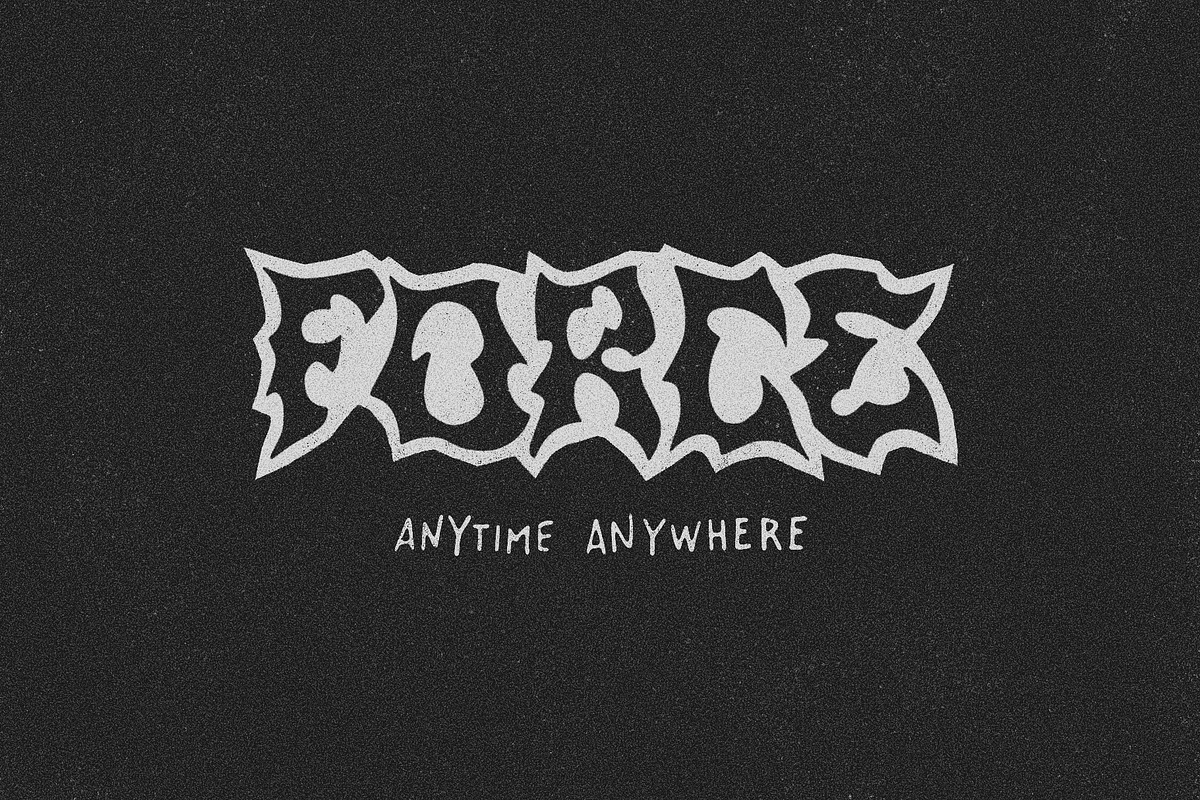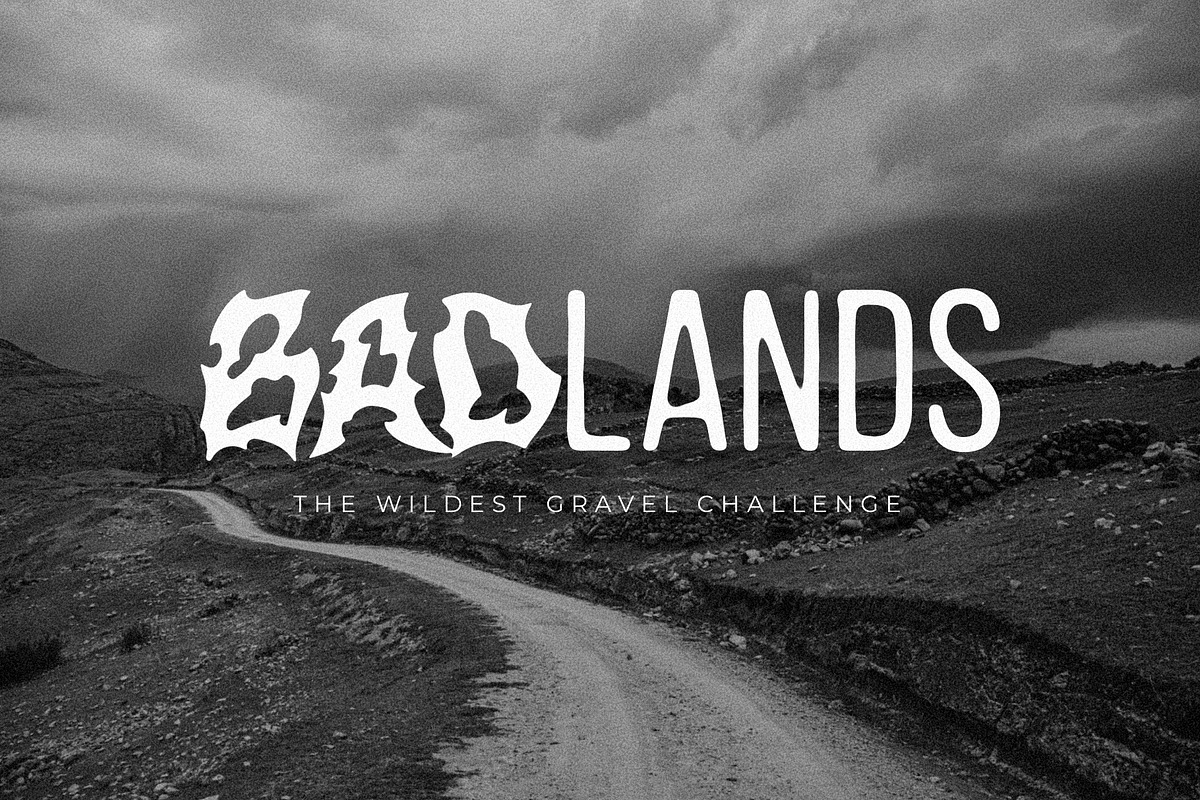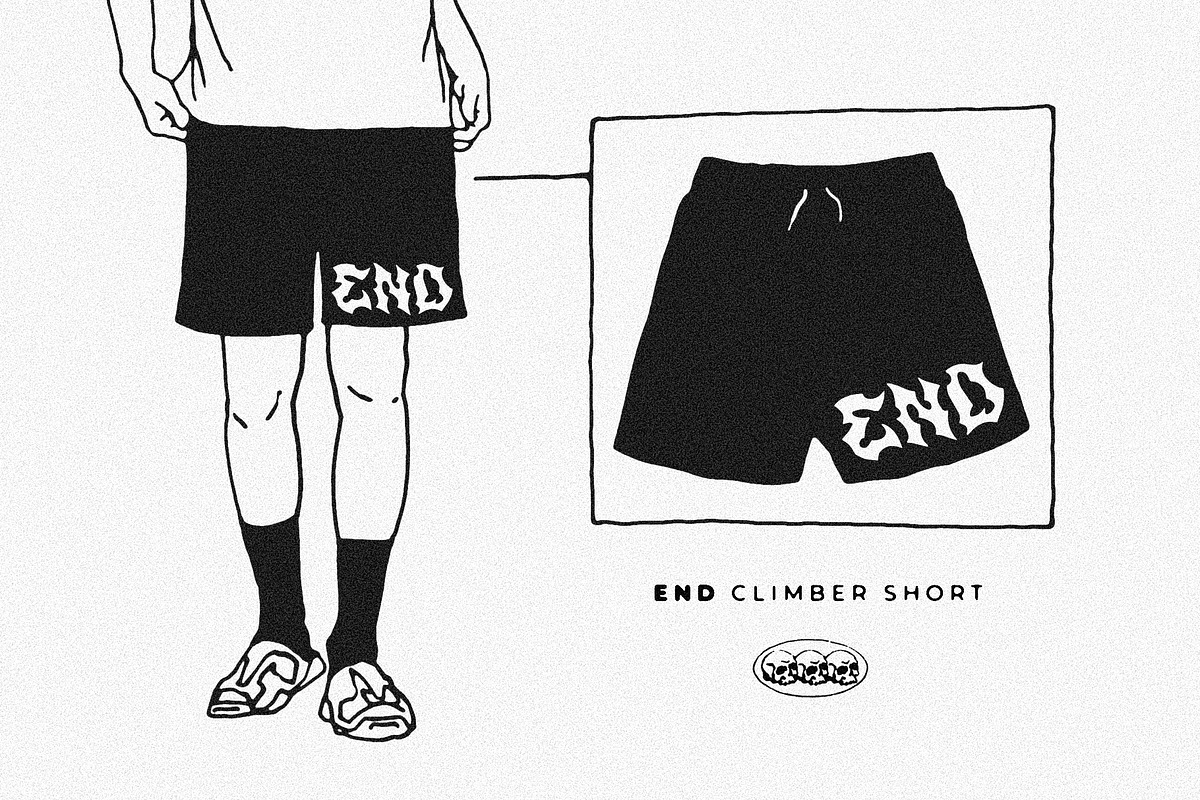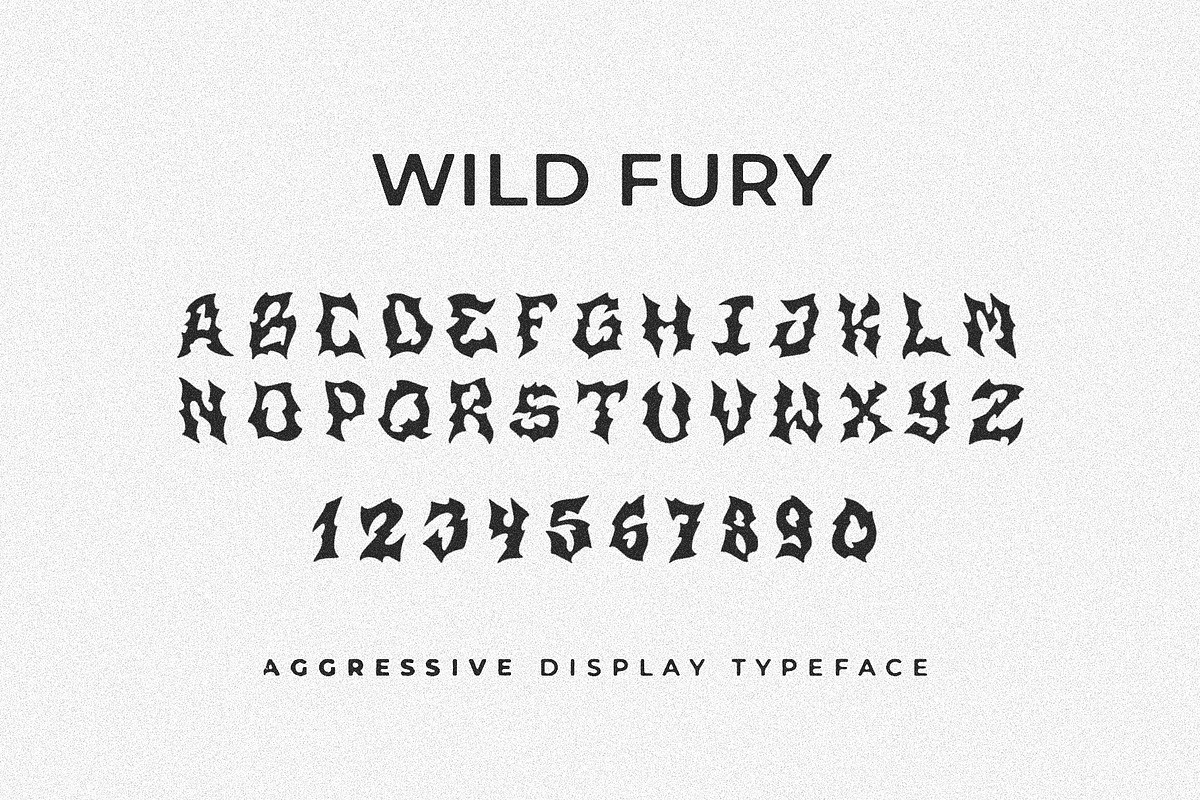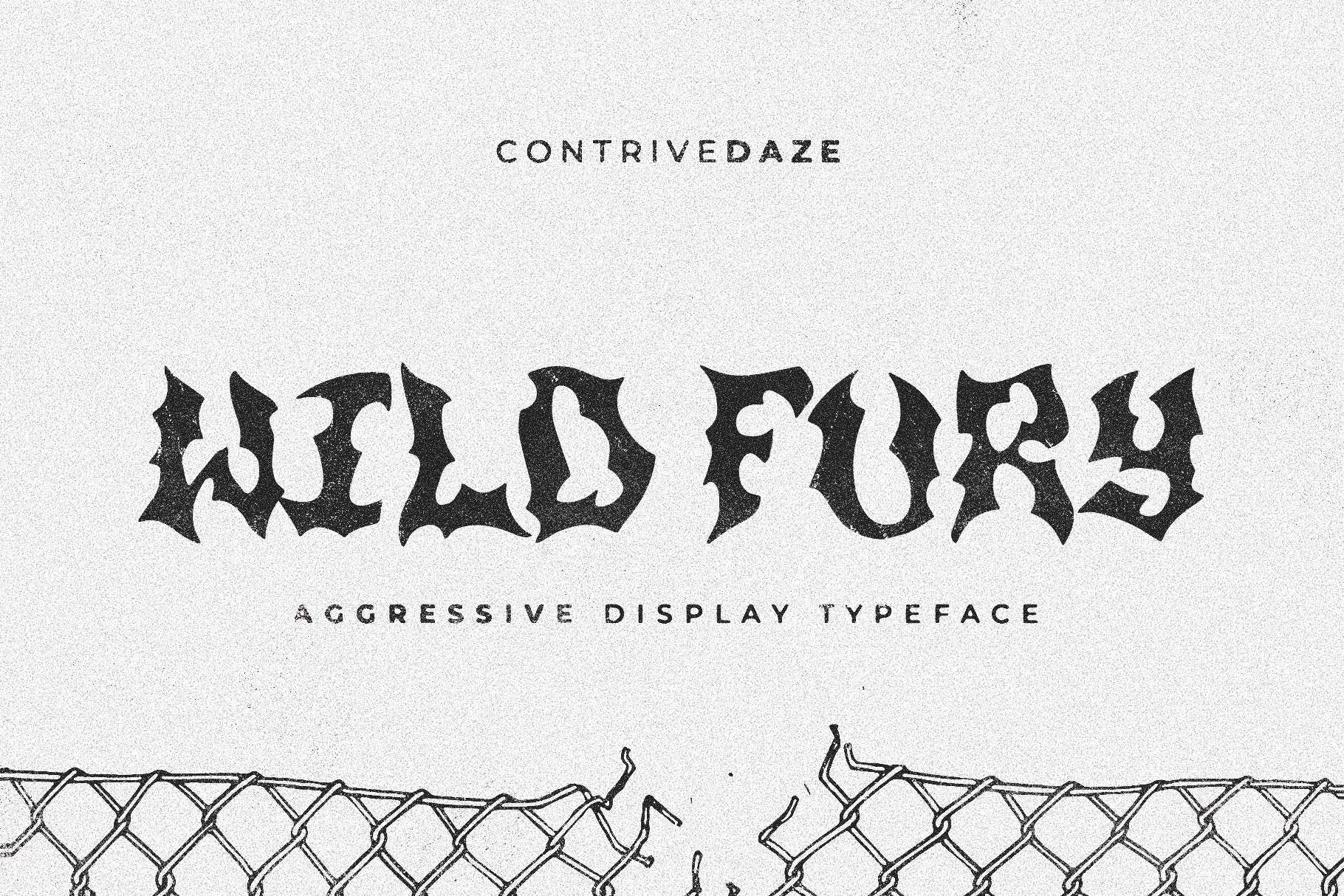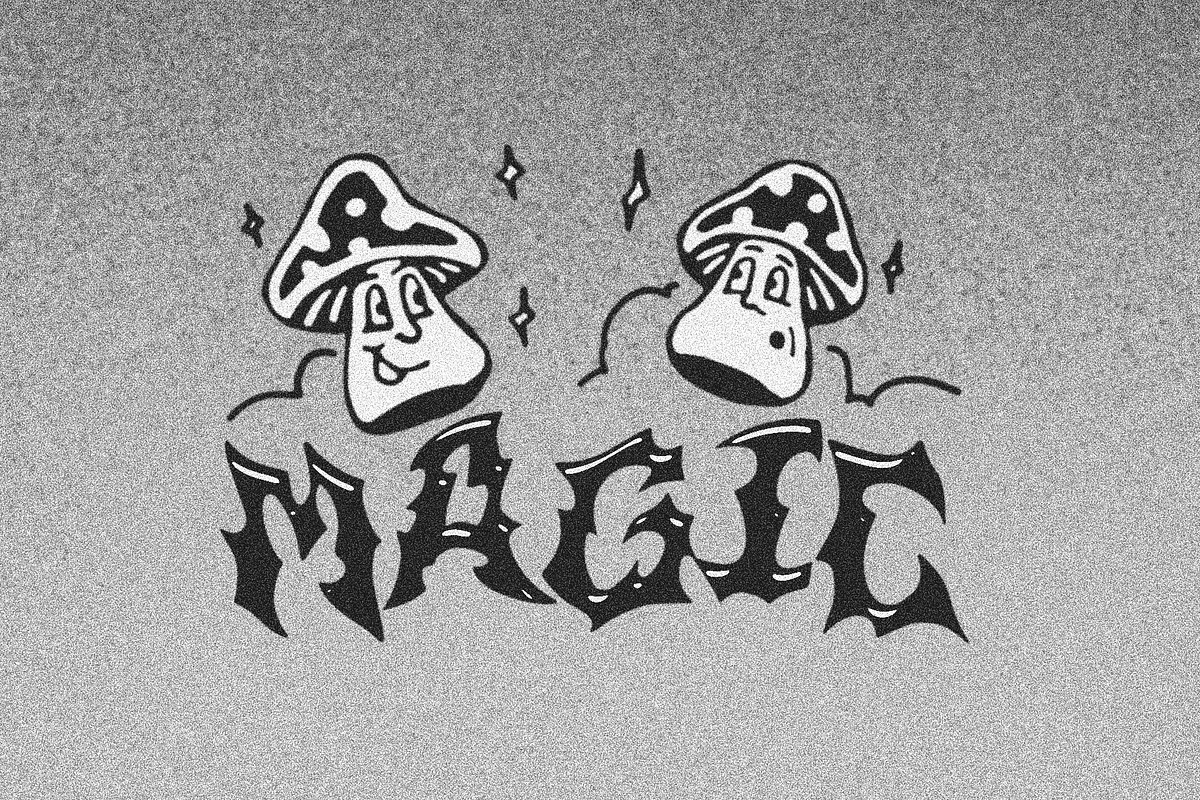
WILD FURY HARDCORE DISPLAY TYPEFACE
Wild Fury is a hardcore display typeface that exudes raw power and relentless energy. With its bold, jagged lines and aggressive design, this font is perfect for projects that demand intensity and impact. Whether you're creating album covers, posters, or branding for extreme sports, Wild Fury delivers a punch that can't be ignored